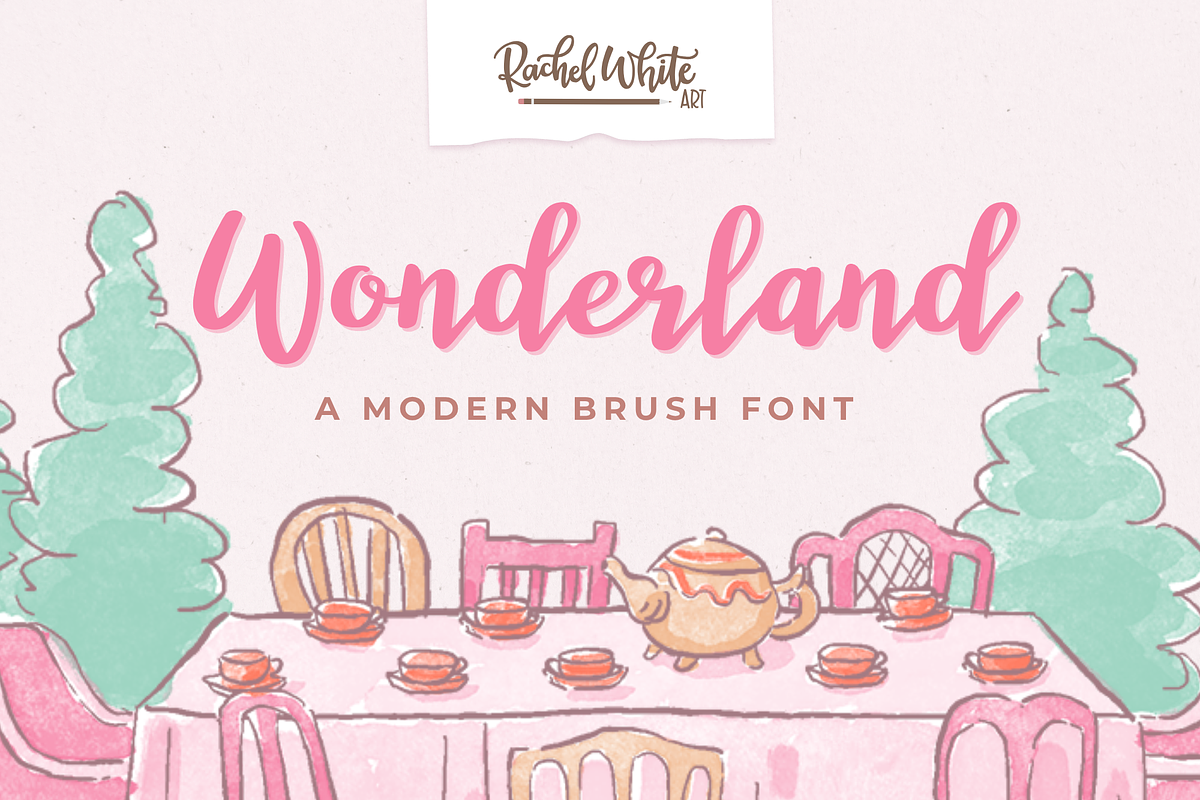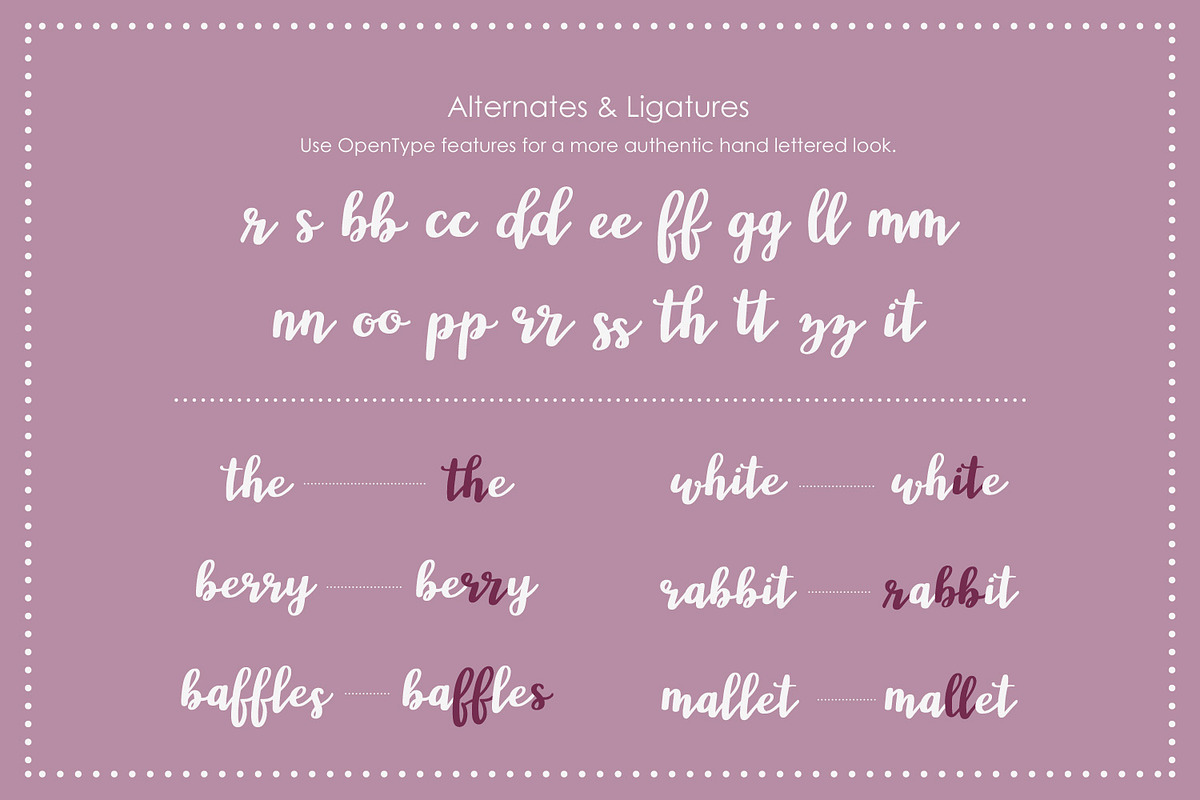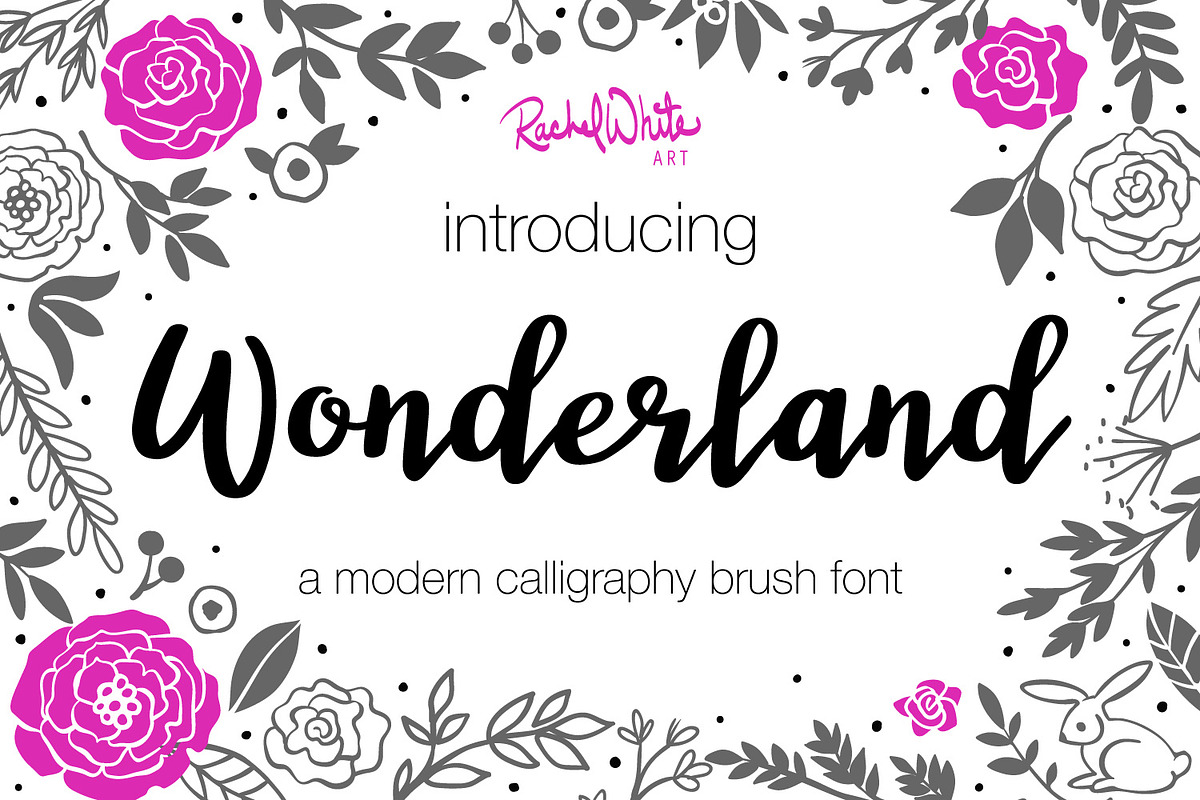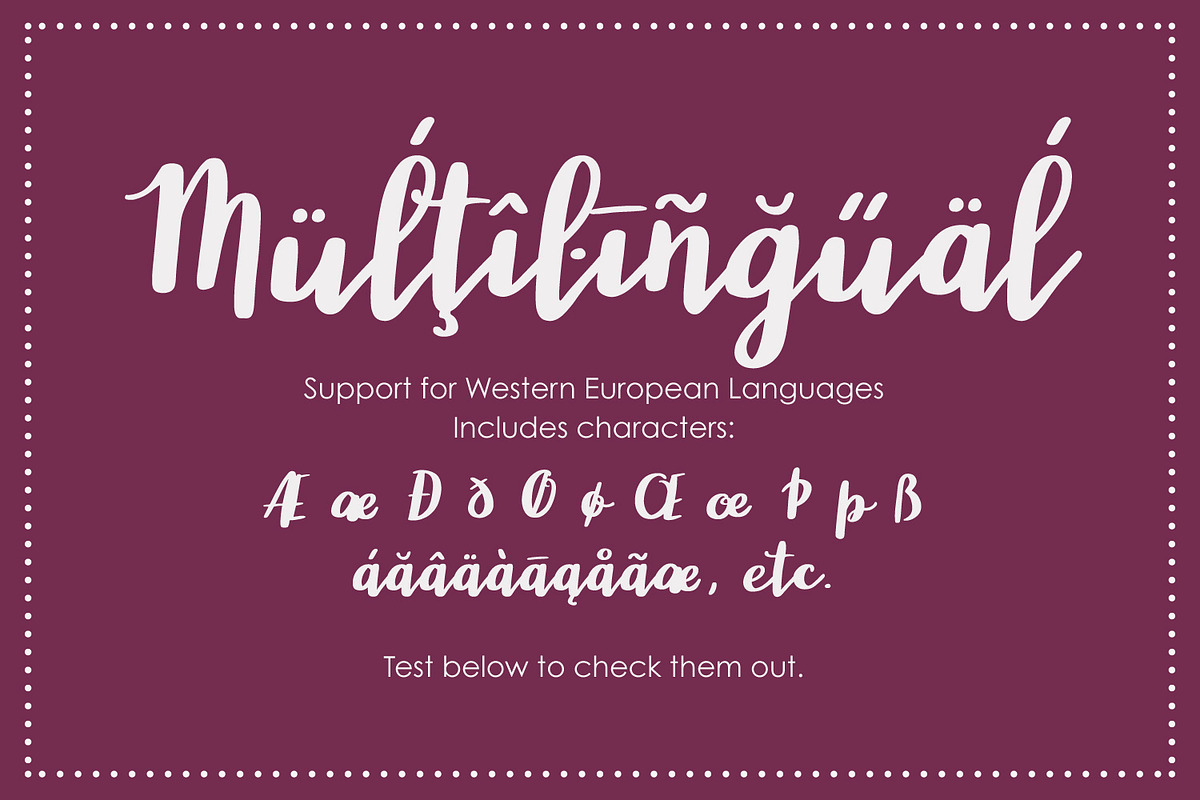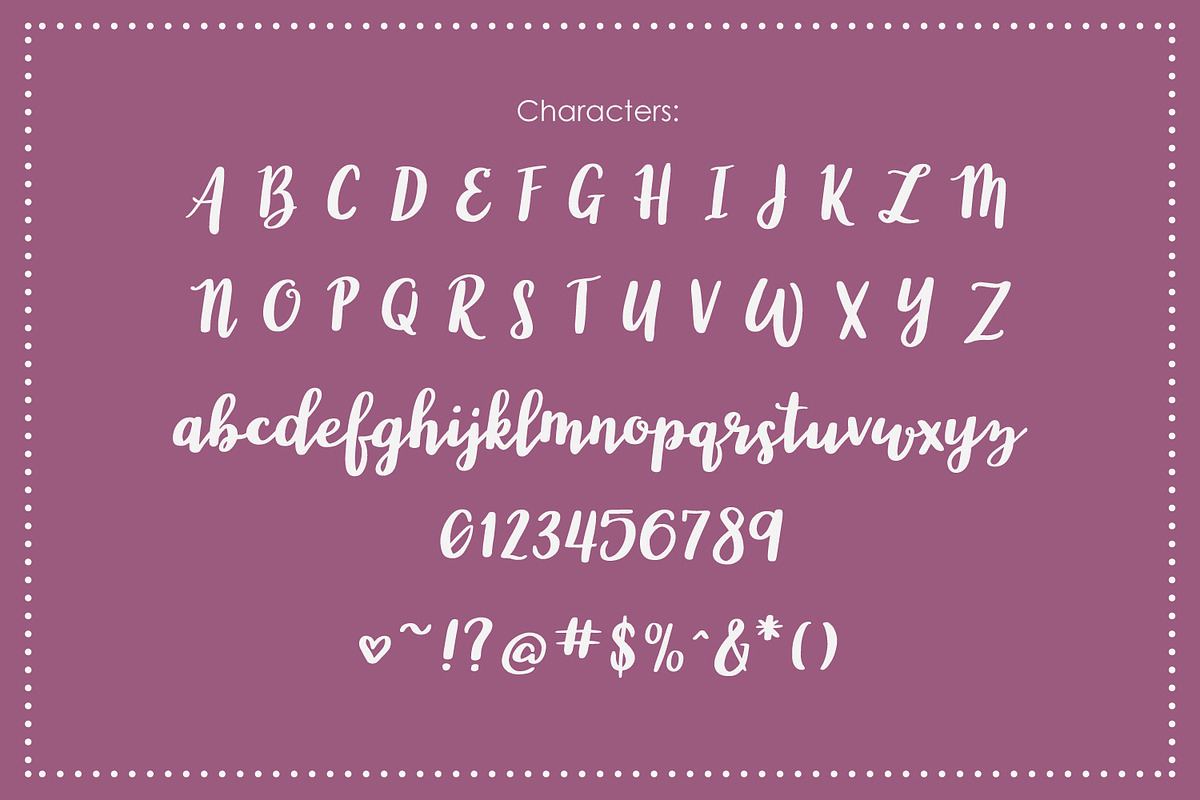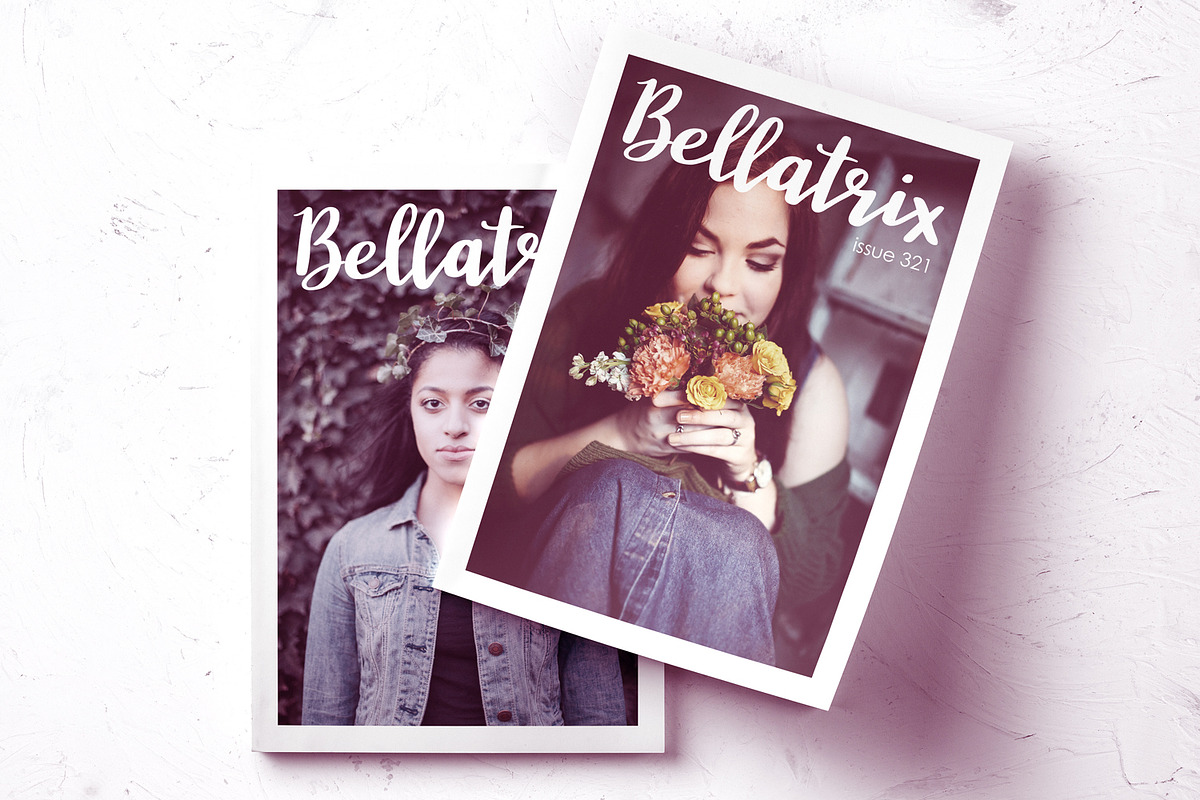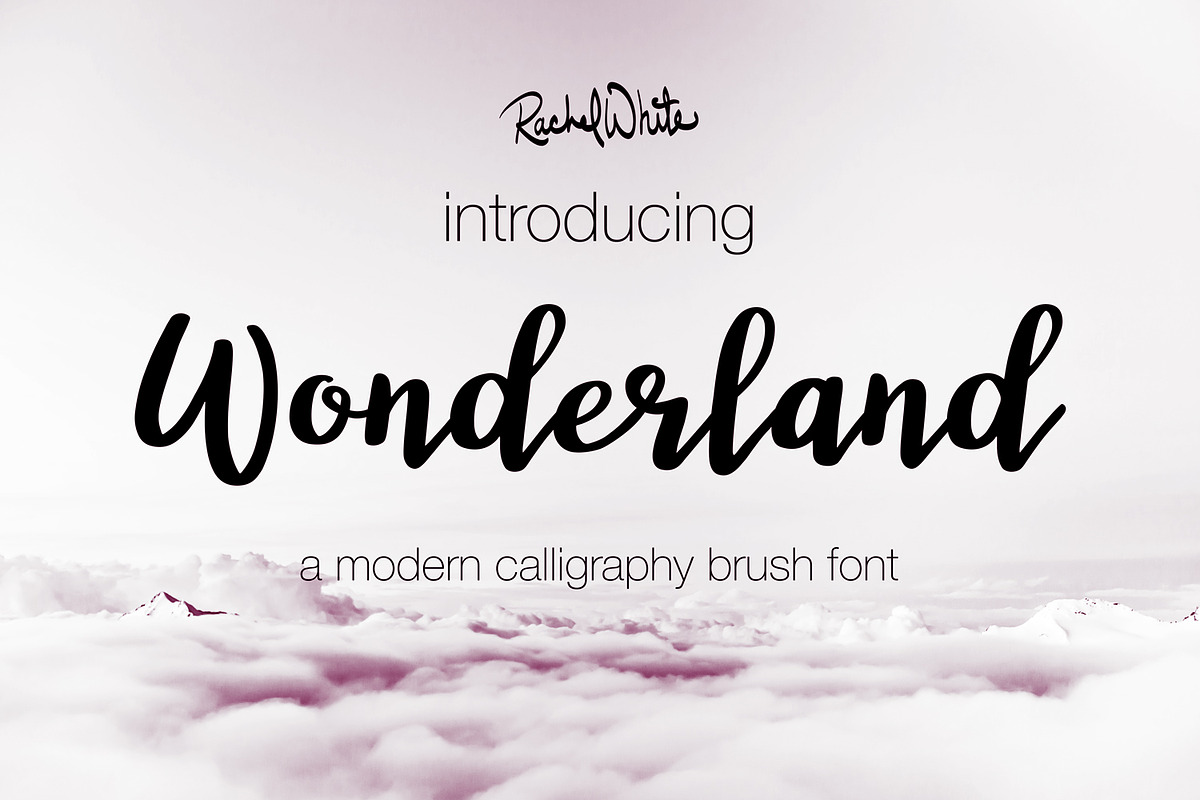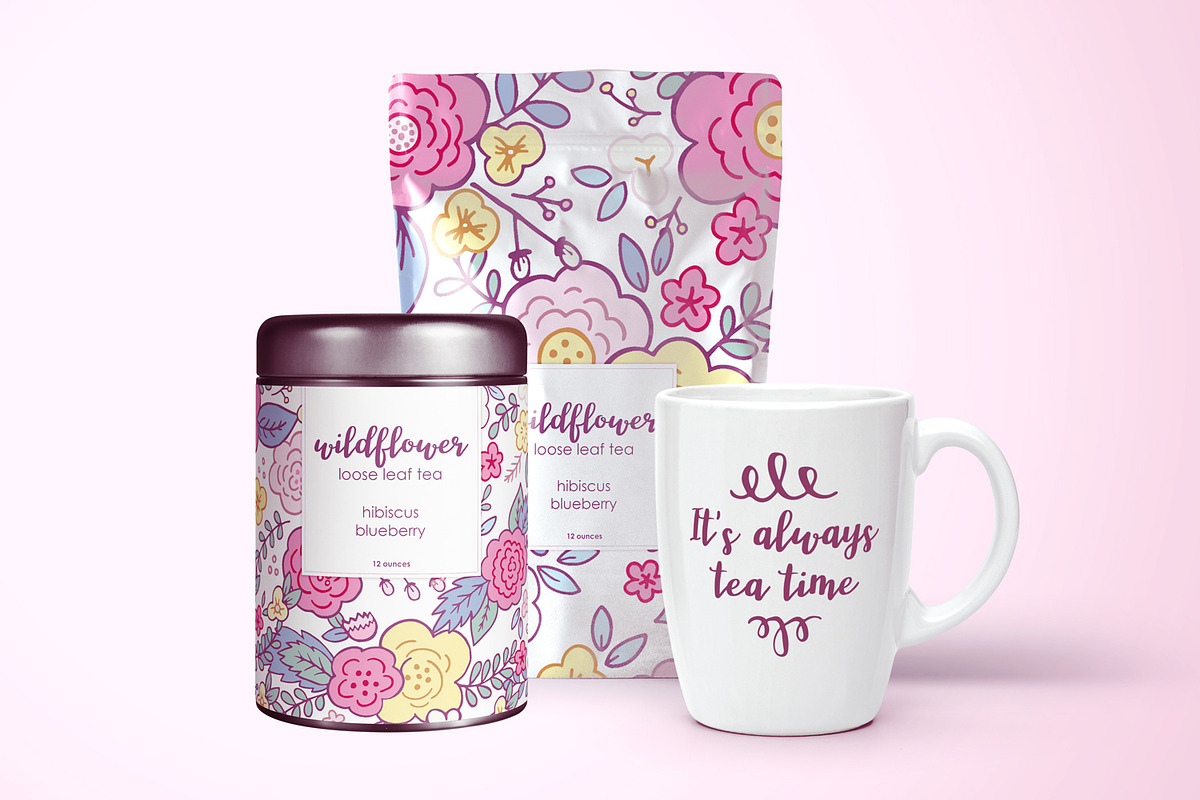
Wonderland, modern calligraphy font
Wonderland, modern calligraphy font by Rachel White Art is a font selected for branding, posters, packaging, typography.
- With smooth, graceful strokes and beautiful ligatures, Wonderland offers a polished look that feels both fresh and timeless—ideal for creati
- Wonderland Script
Wonderland, modern calligraphy font by Rachel White Art fits naturally into Branding, posters, packaging, typography.